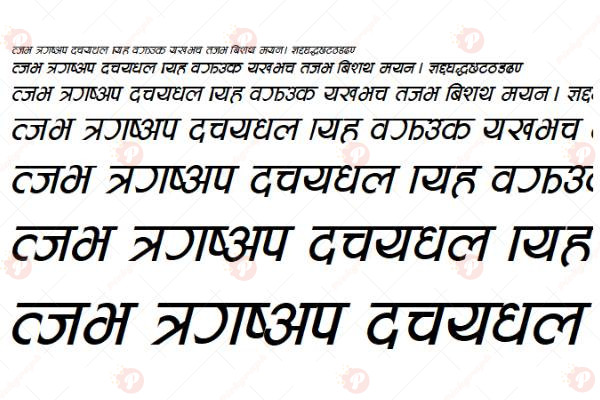
The Aakriti Italic Font is a sleek and expressive typeface with elegant slanted styling. Perfect for adding emphasis, style, and personality to your projects, this italic version of the Aakriti family is ideal for quotes, posters, invitations, branding, social media graphics, and editorial design.
Its smooth curves and modern look make it a versatile choice for both digital and print media.
Style: Italic / Slanted / Modern Typeface
Perfect for: Quotes, Branding, Posters, Invitations, Social Media & Editorial
Add a touch of sophistication and emphasis with the Aakriti Italic Font.
| Optimum Size | Large (Display / Poster) |